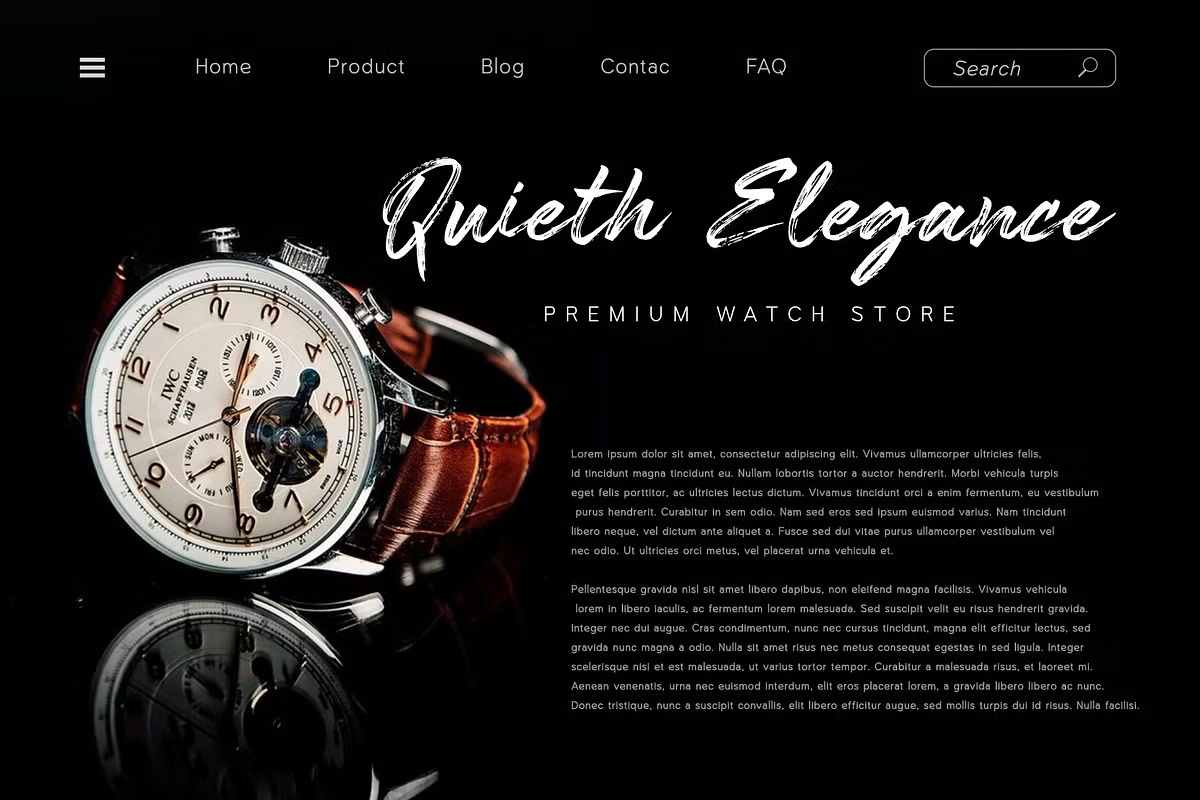
Bableya is a charming, modern brush font with an elegant and inviting style. Its smooth brush strokes give it a friendly and engaging appearance, making it a standout choice to bring personality and flair to your designs.
Perfect for a wide range of creative projects, Bableya shines in branding, logos, wedding invitations, social media graphics, advertisements, product packaging, labels, photography, stationery, and anywhere a handwritten touch adds warmth and authenticity.
Bableya Brush Script Font